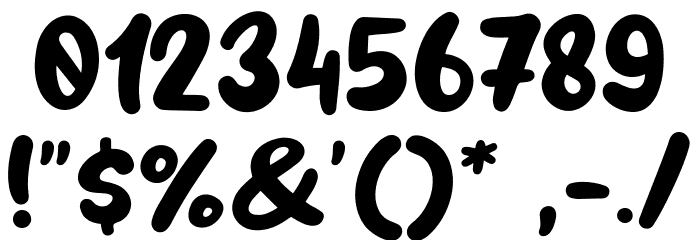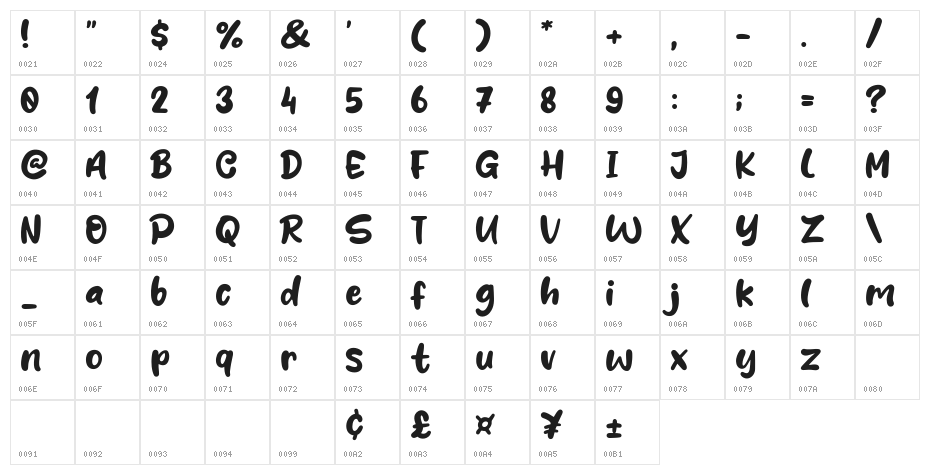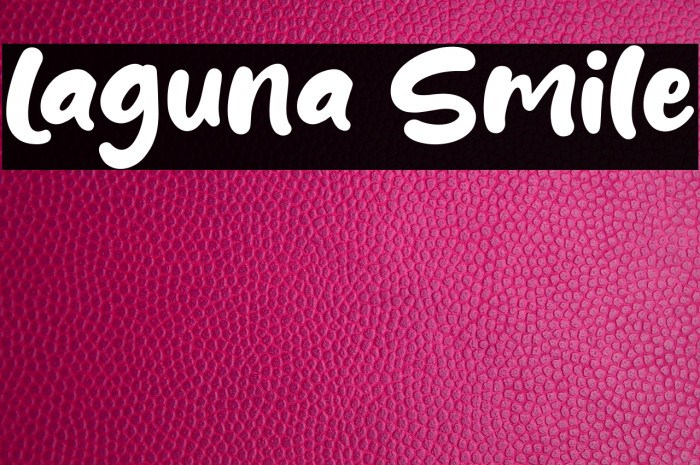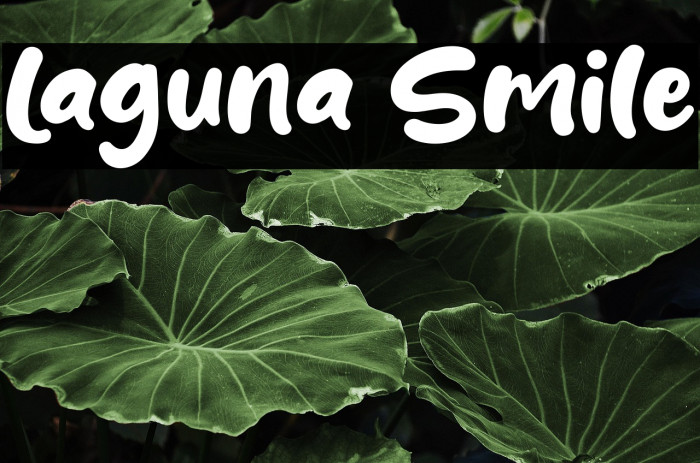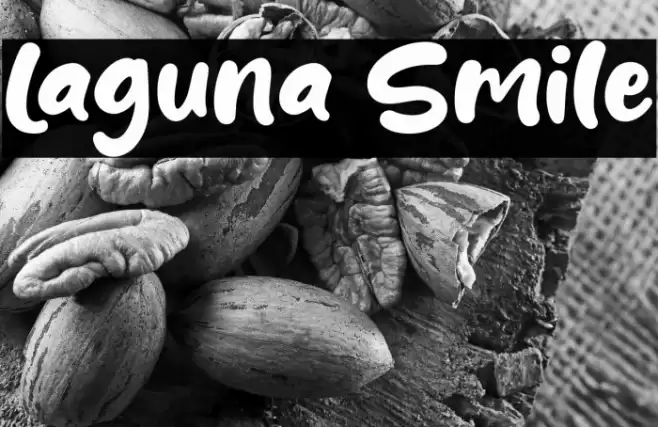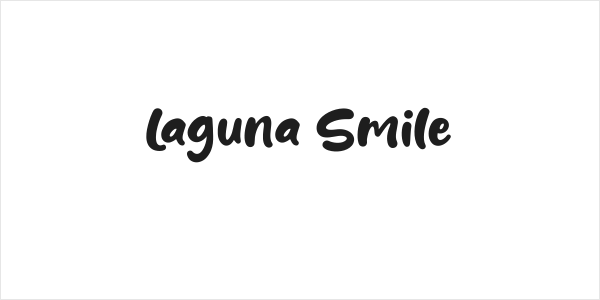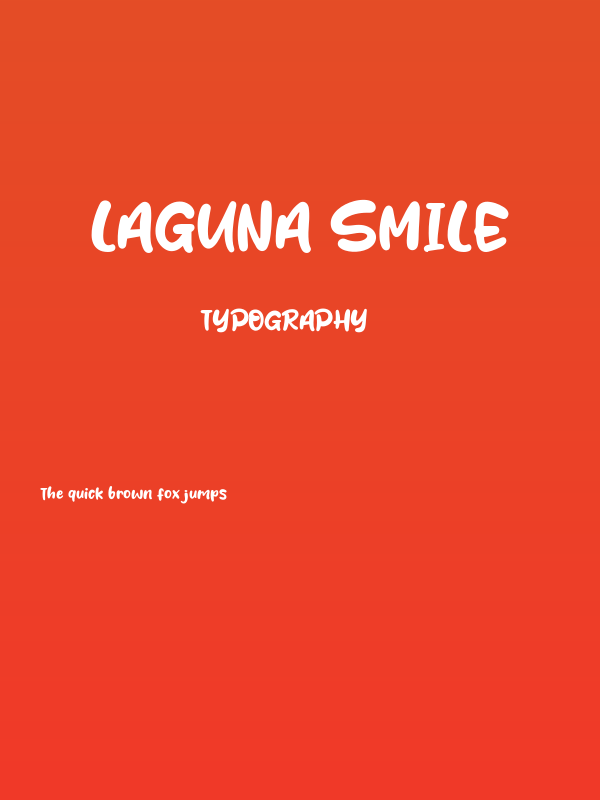
Laguna Smile Font
Laguna Smile Description
This playful and bold font features a handwritten style with a lively and energetic appearance. The characters are rounded and slightly irregular, giving them a whimsical and friendly feel. The uppercase and lowercase letters maintain a consistent flow, while the numbers and special characters complement the overall design with their bold and rounded forms. The font's thick strokes and smooth curves make it highly legible, even at smaller sizes. Its unique personality is perfect for projects that aim to convey fun and creativity.